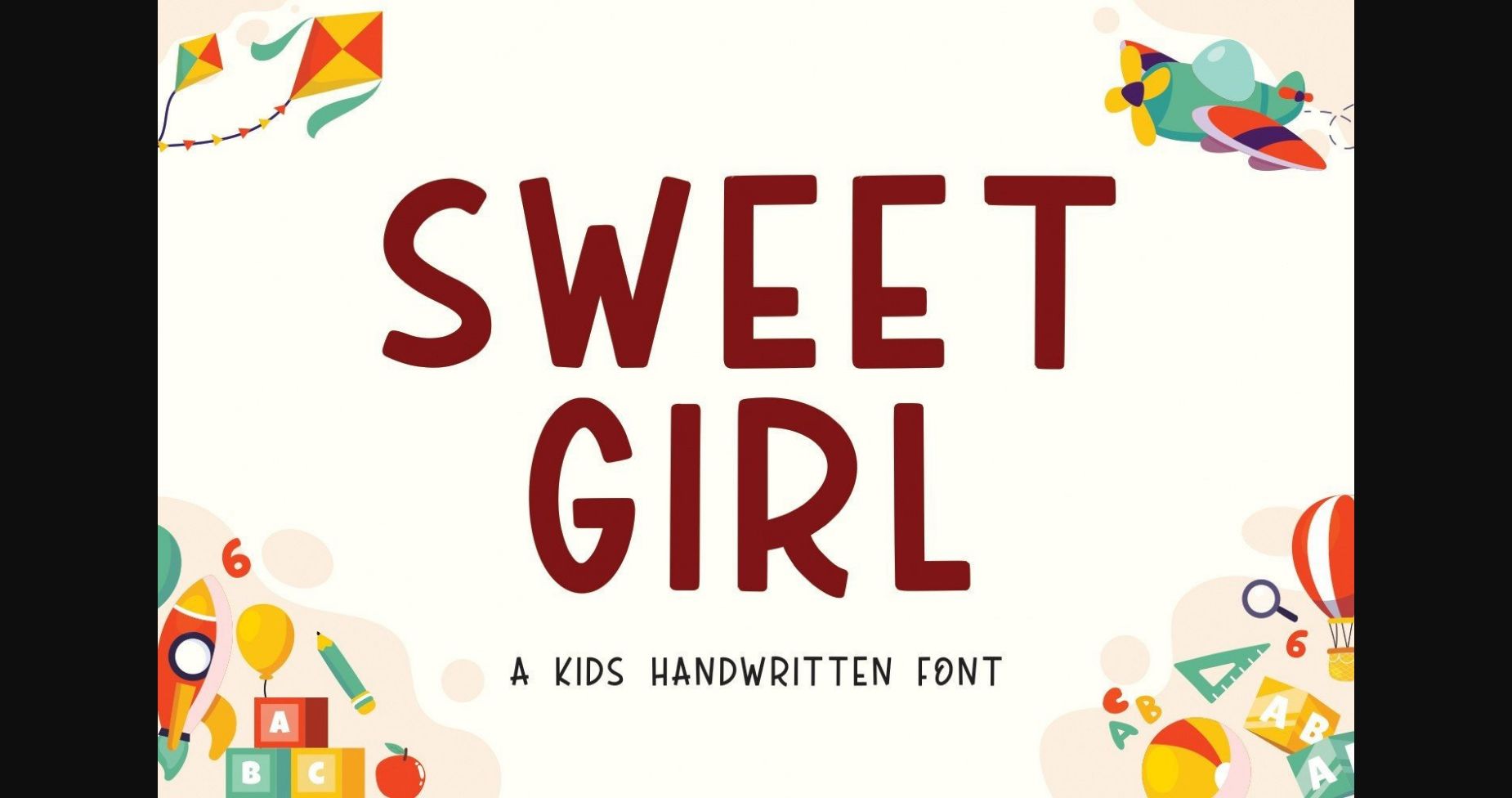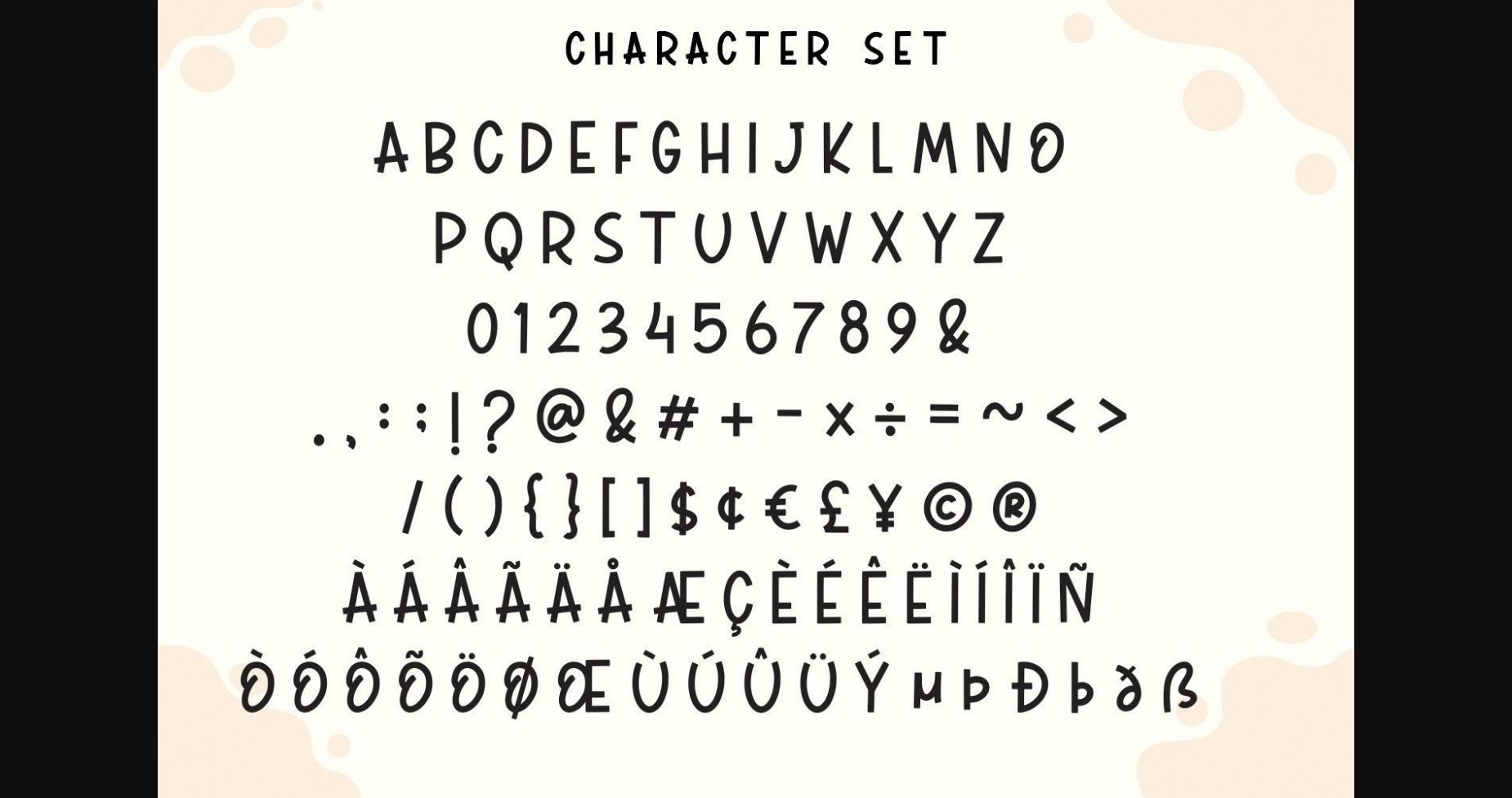
About Sweetgirl Font
Sweet Girl is a cute and tall sans serif font.
This font is ideal for crafting, branding, decorating, farmhouse designs, shirts, SVG designs, branding, blogs, logos, invitations, and more!
With this unique typeface, you can also create a logo or beautiful frame for your home.
You can also use it for your business, book covers, stationery, marketing, magazines, and more.
Fall in love with its incredibly versatile style, and use it to create spectacular designs!
Use this font for any crafting project that requires a personalized look!
This font is ideal for crafting, branding, decorating, farmhouse designs, shirts, SVG designs, branding, blogs, logos, invitations, and more!
With this unique typeface, you can also create a logo or beautiful frame for your home.
You can also use it for your business, book covers, stationery, marketing, magazines, and more.
Fall in love with its incredibly versatile style, and use it to create spectacular designs!
Use this font for any crafting project that requires a personalized look!